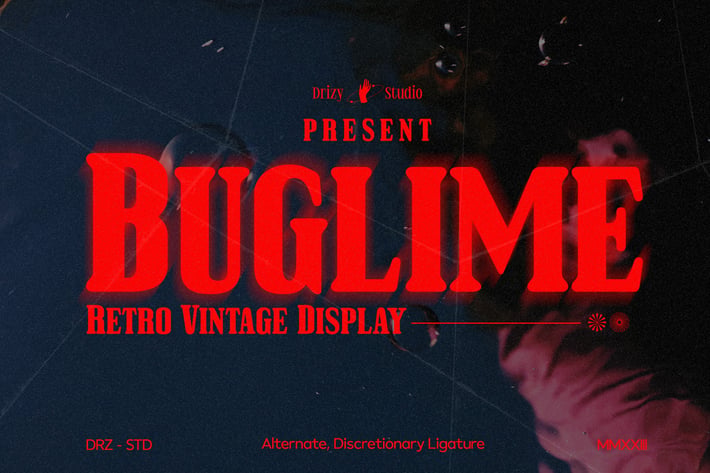
Buglime – Retro Vintage Serif Font
Buglime is a Retro Vintage Display Serif font from Drizy Studio. Offering all the bold, classic styles you need for your classy and unique design projects.
Buglime features:
Alternates
Ligatures
Numeral & Punctuations